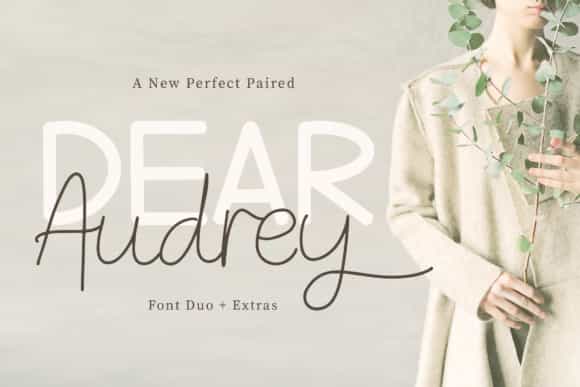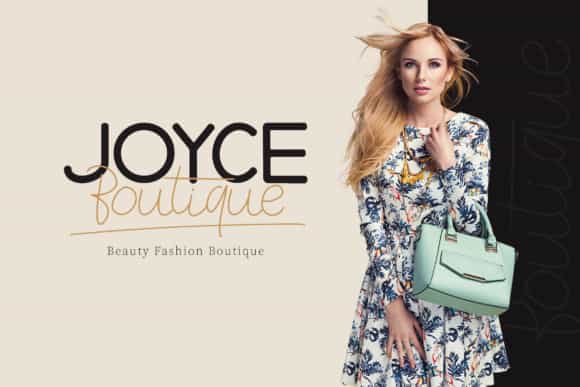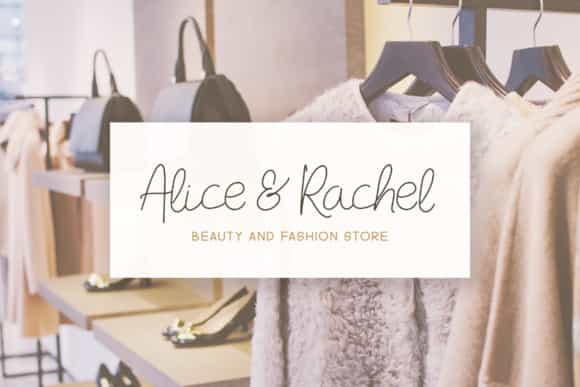
Discover Dear Audrey Font Duo, part of the Sans Serif Handwritten collection—a versatile and unique font perfect for adding a personal touch to your projects. Download it for free and enjoy crafting designs with style, from invitations to social media posts. This font is available exclusively for personal use, giving you the freedom to create without limits. Unlock your creativity with Dear Audrey Font Duo today!
We want to present to your attention Dear Audrey Font Duo! This is a beautiful hand drawn font collection of two Script fonts and Sans Serif font (no information about the font designer). The current puzzle is designed and provided by peterdraw. It is a calligraphy font design that is handwritten and comes as a duo font with a beautiful and classy look. It is recommended to use both font styles in the same project and create a unique design that will attract the readers’ attention.